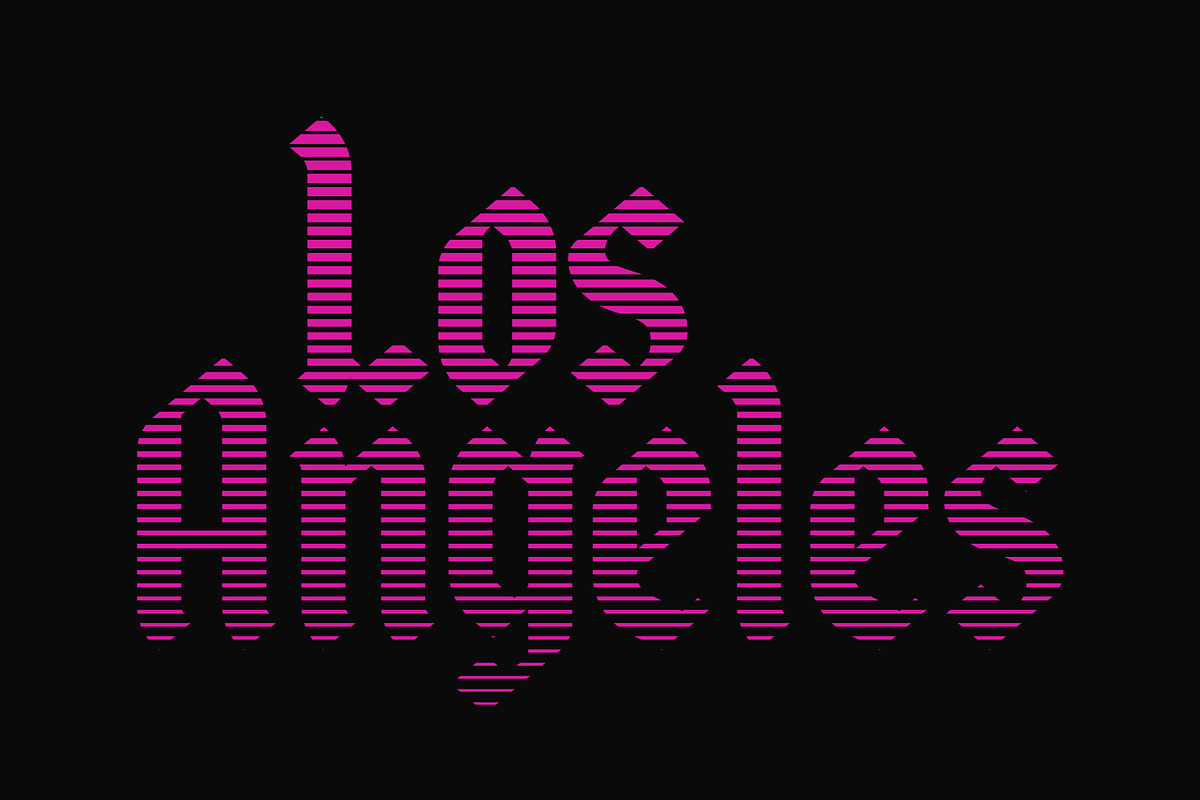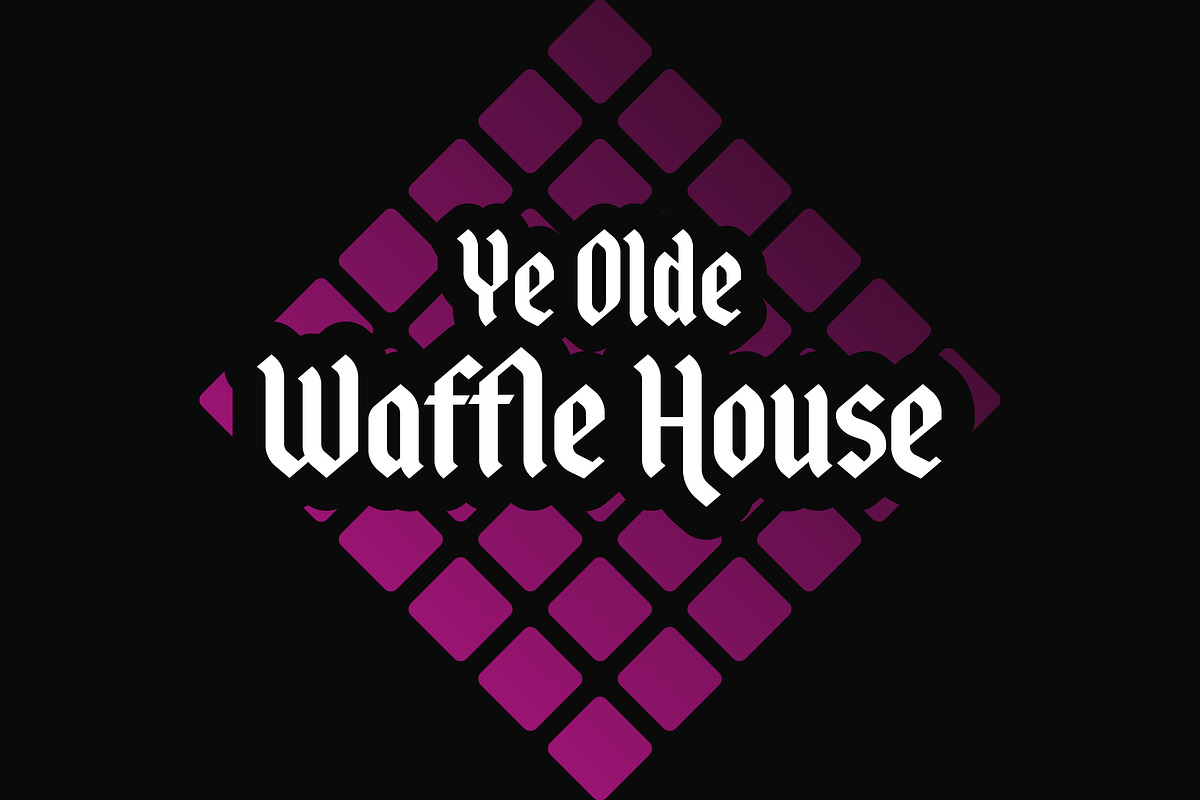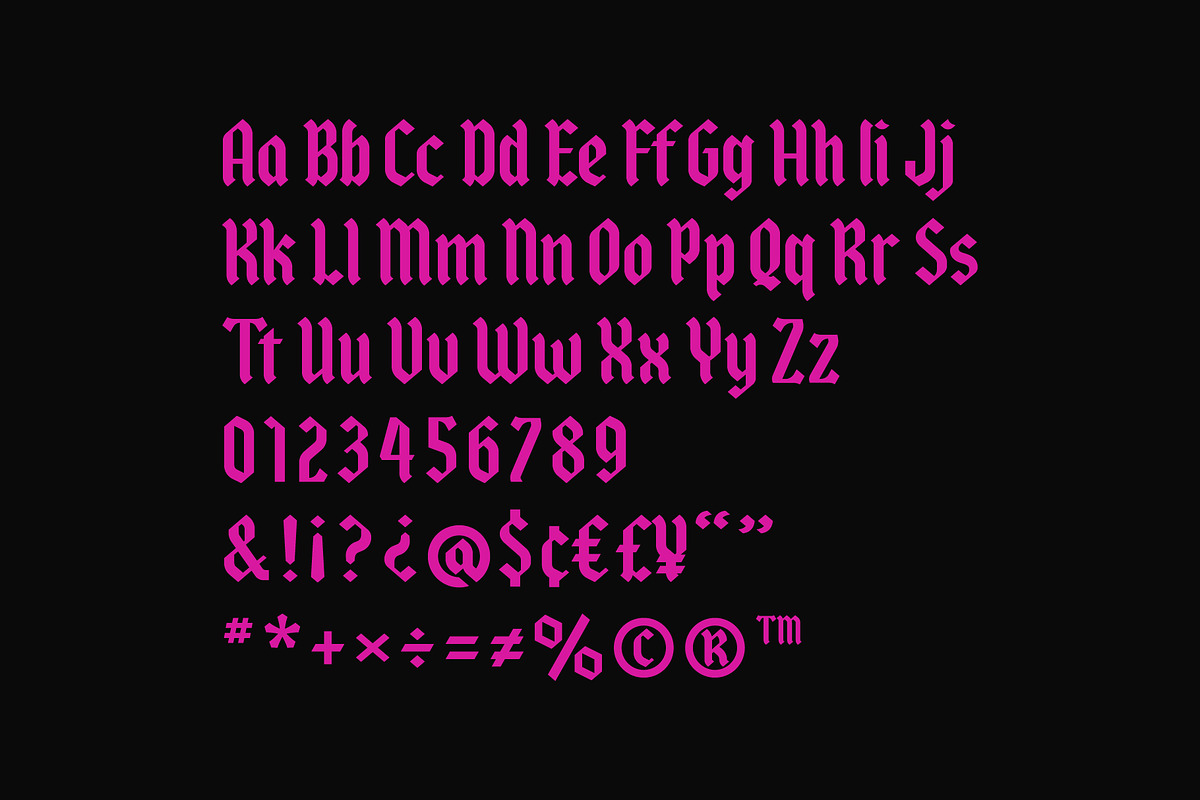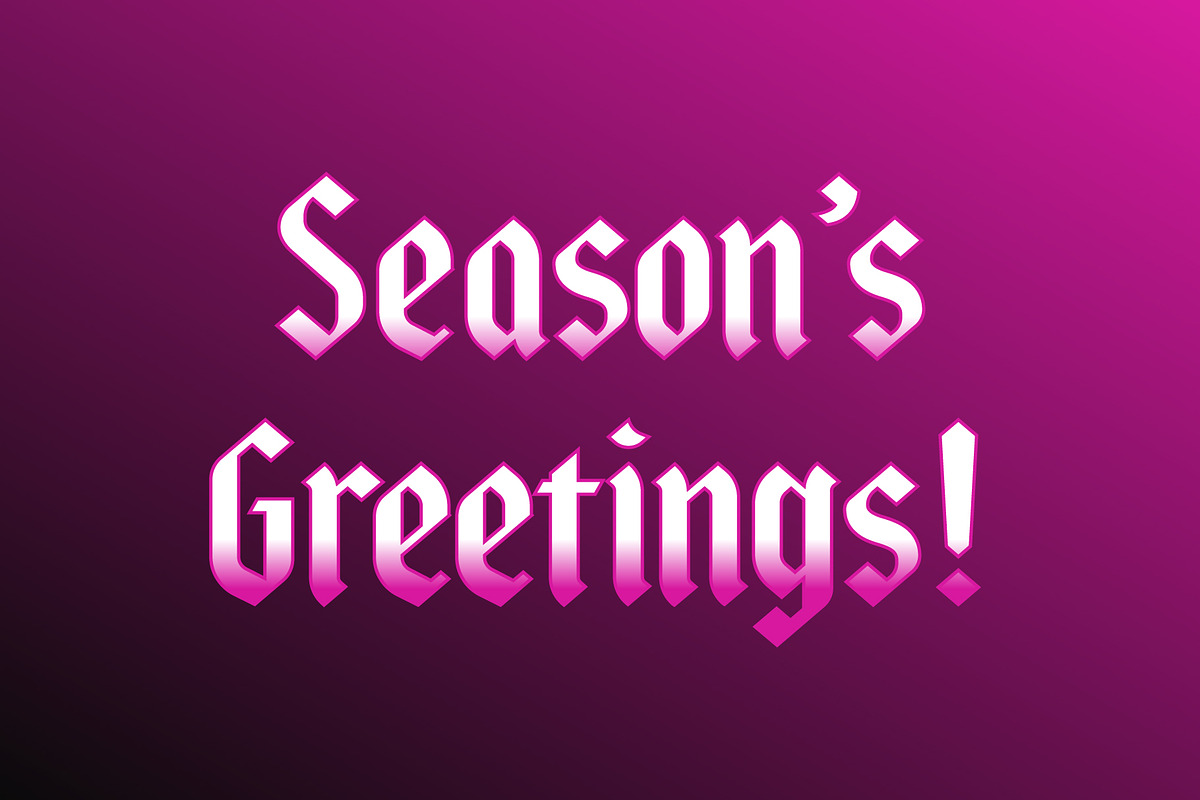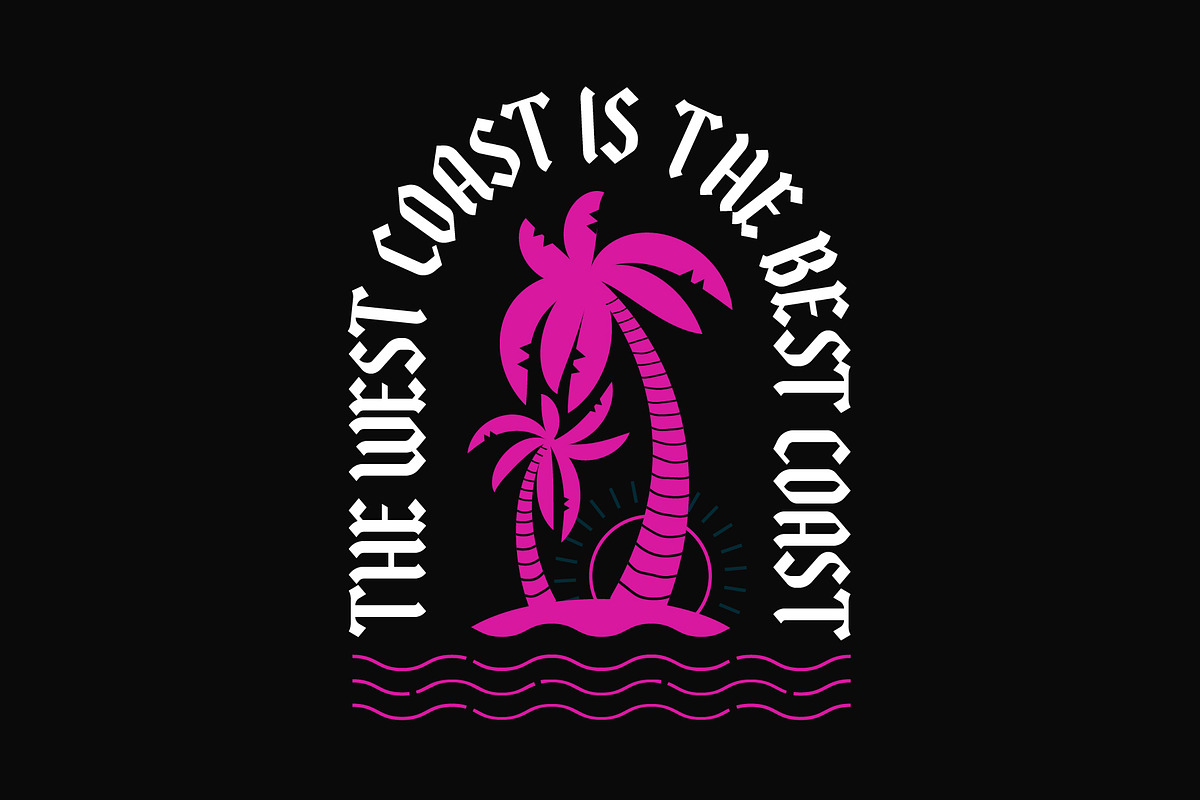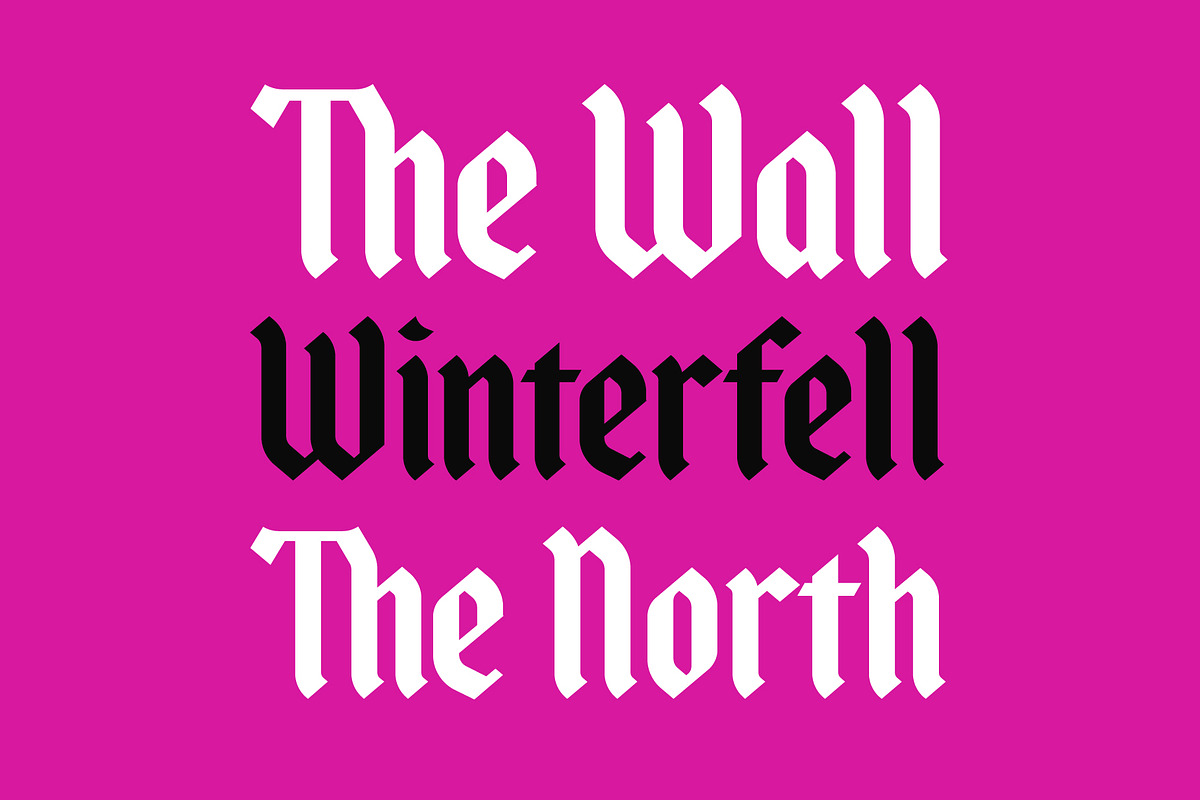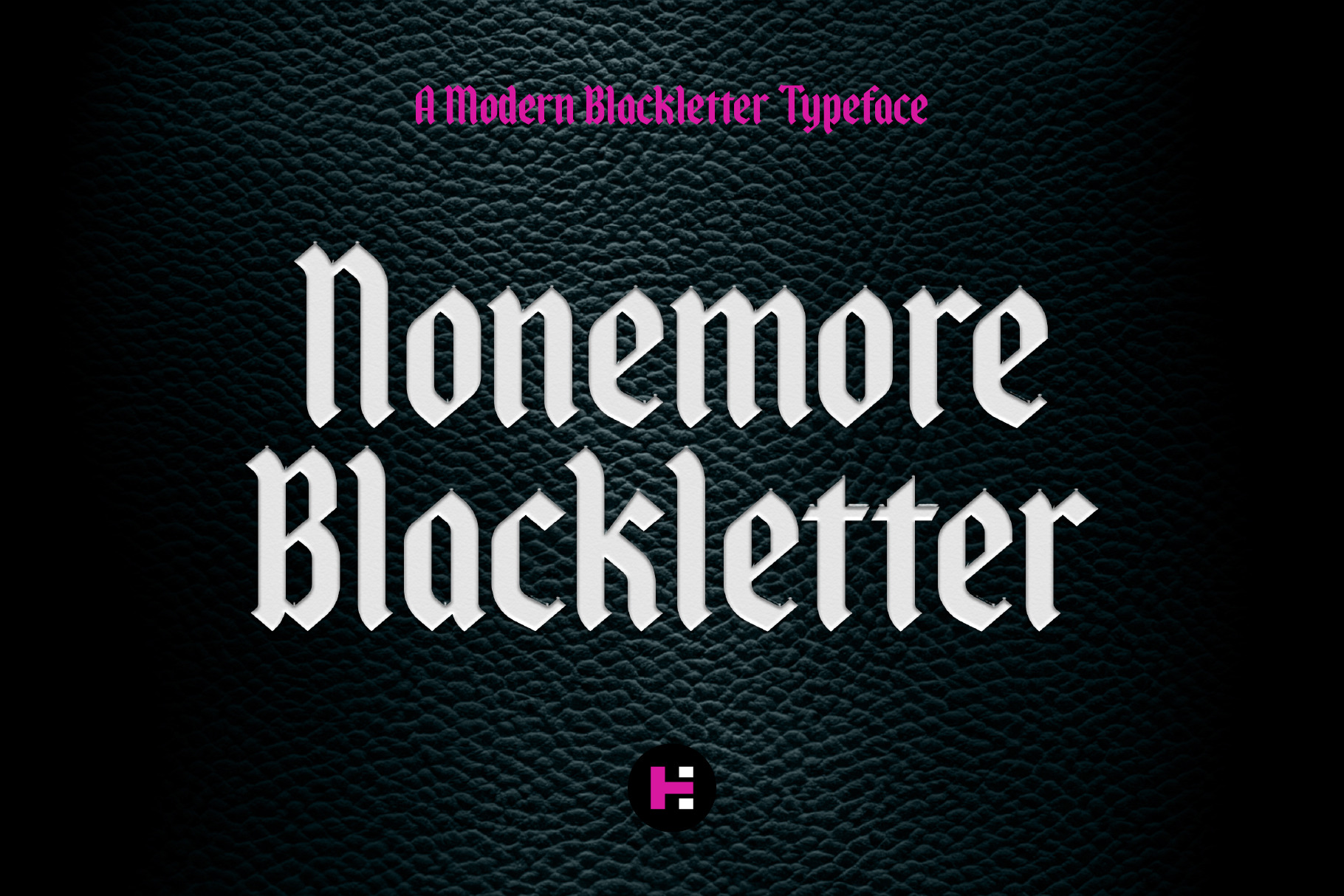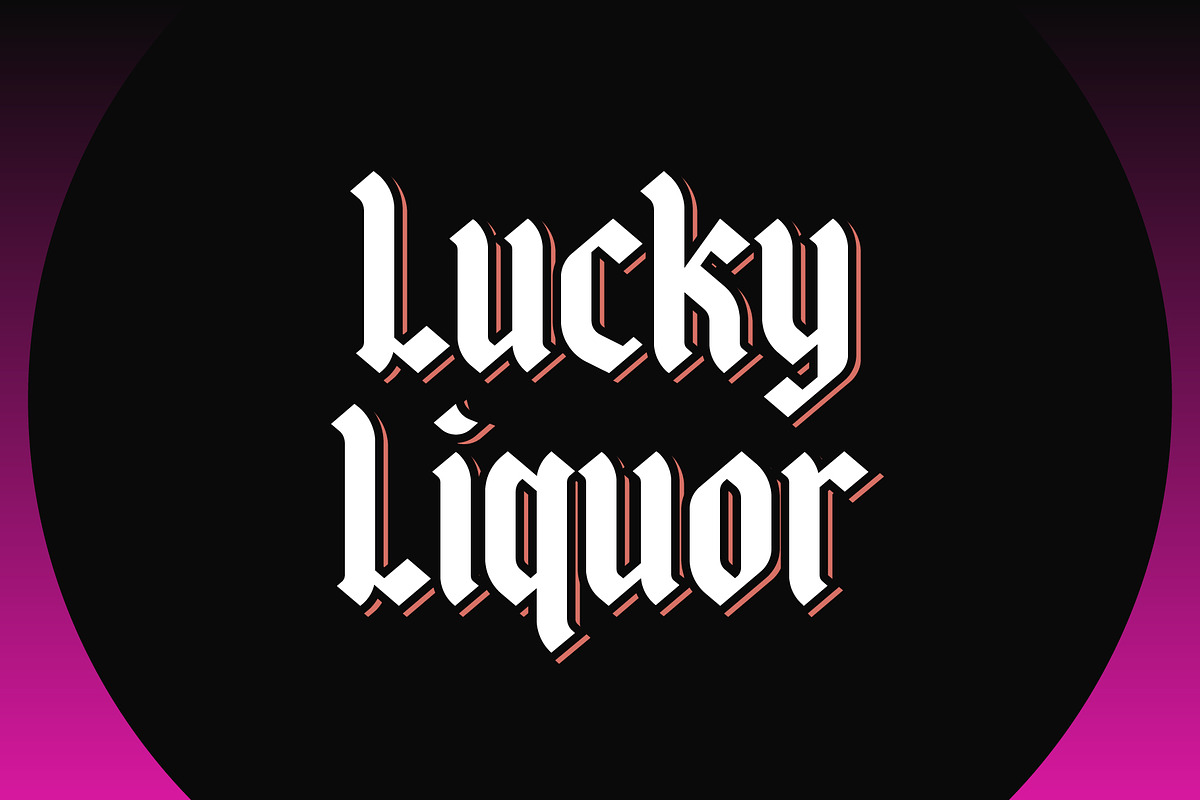
Nonemore Blackletter Display Font
How much more Blackletter could this font possibly be? And the answer is None. Nonemore Blackletter.
Nonemore Blackletter is a modern take on classic blackletter type design. Theme park matchbook designs from the 1960s are where these letters found their inspiration. Taking elements from their classic structure and bringing them to a modern, digital world was the ultimate goal of this typeface.
Nonemore Blackletter has a bit of a sharp edge to it, but can also be playful and full of fantasy. The broad utility of Nonemore is what makes setting type with it so much fun. Looking for a font for your next holiday card? Done. Need a display typeface for your storefront? Check. Does your movie poster need a touch of whimsy? Got it.
There are also a good mix of stylistic alternates and ligatures available, to provide some versatility to your next design.
Nonemore Blackletter is a display typeface designed to be used for headline sizes and larger.
- 1 Style: Nonemore Blackletter Regular
- Standard English Alphabet
- Numerals, Currency Symbols, Standard Punctuation, Diacritics